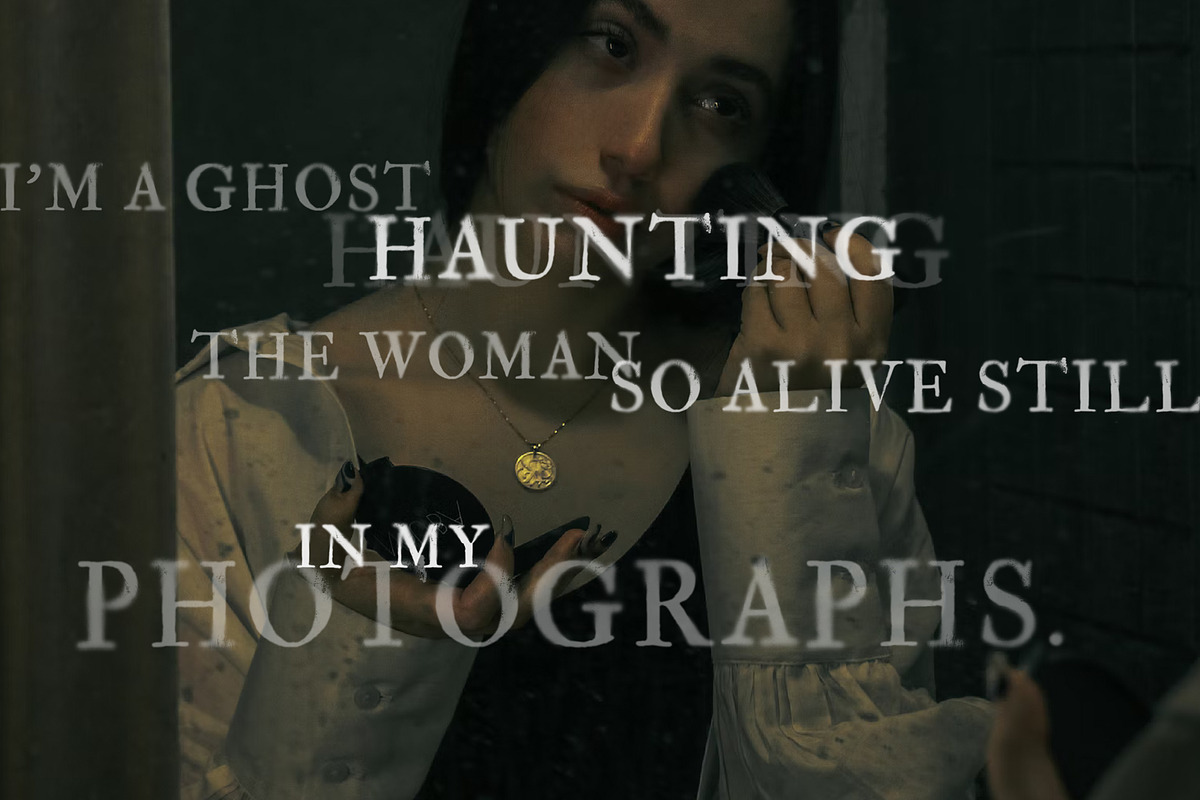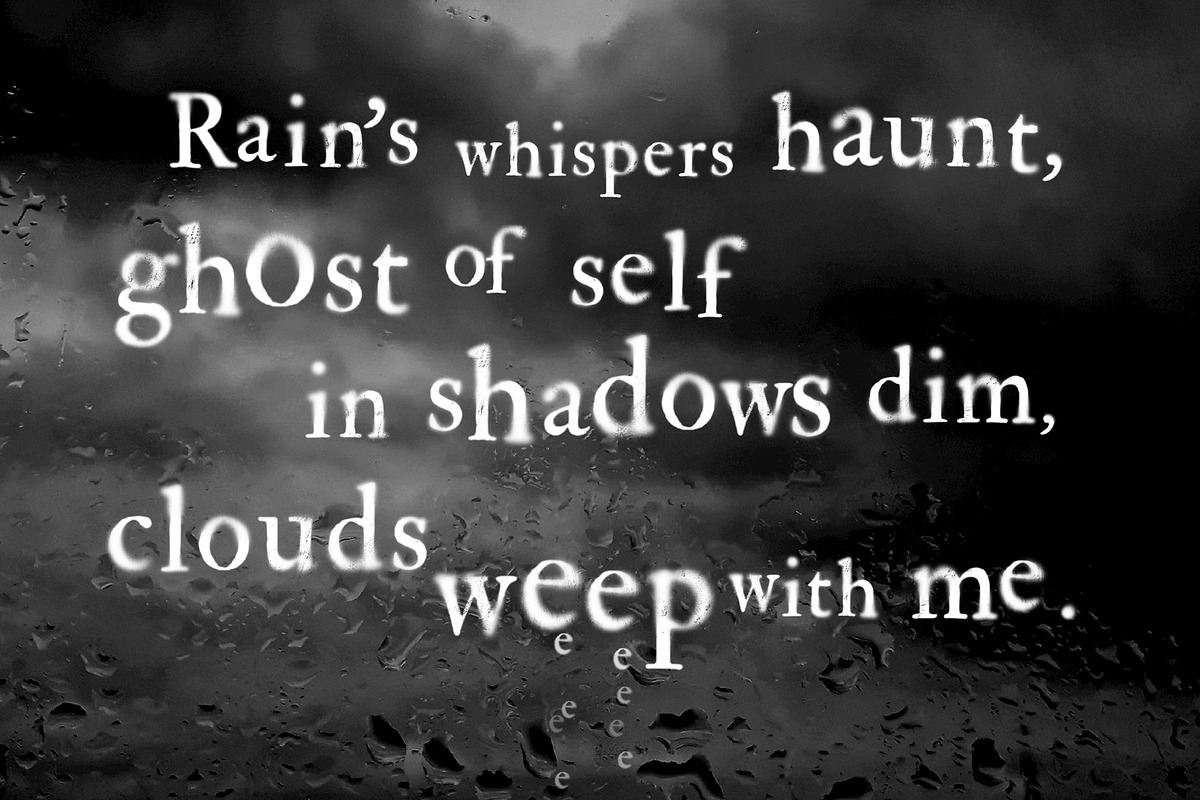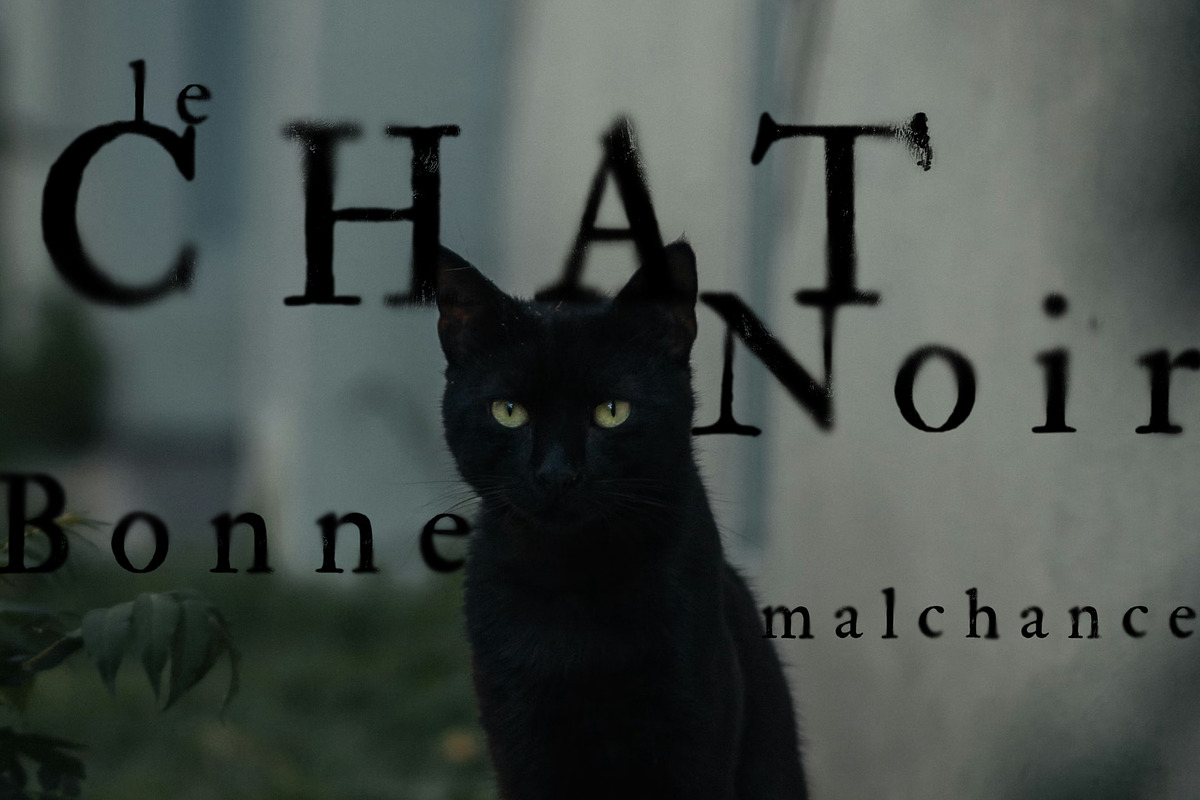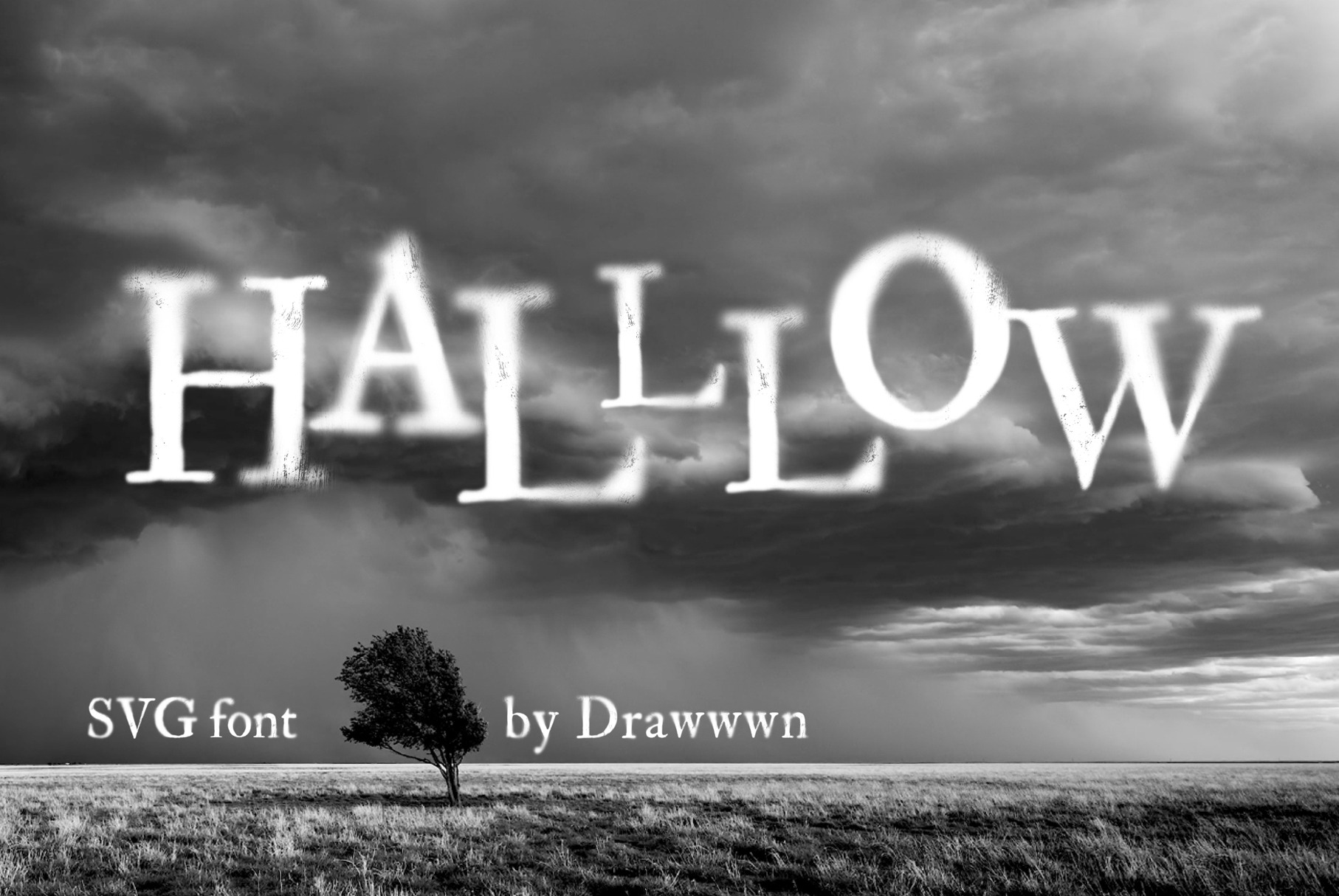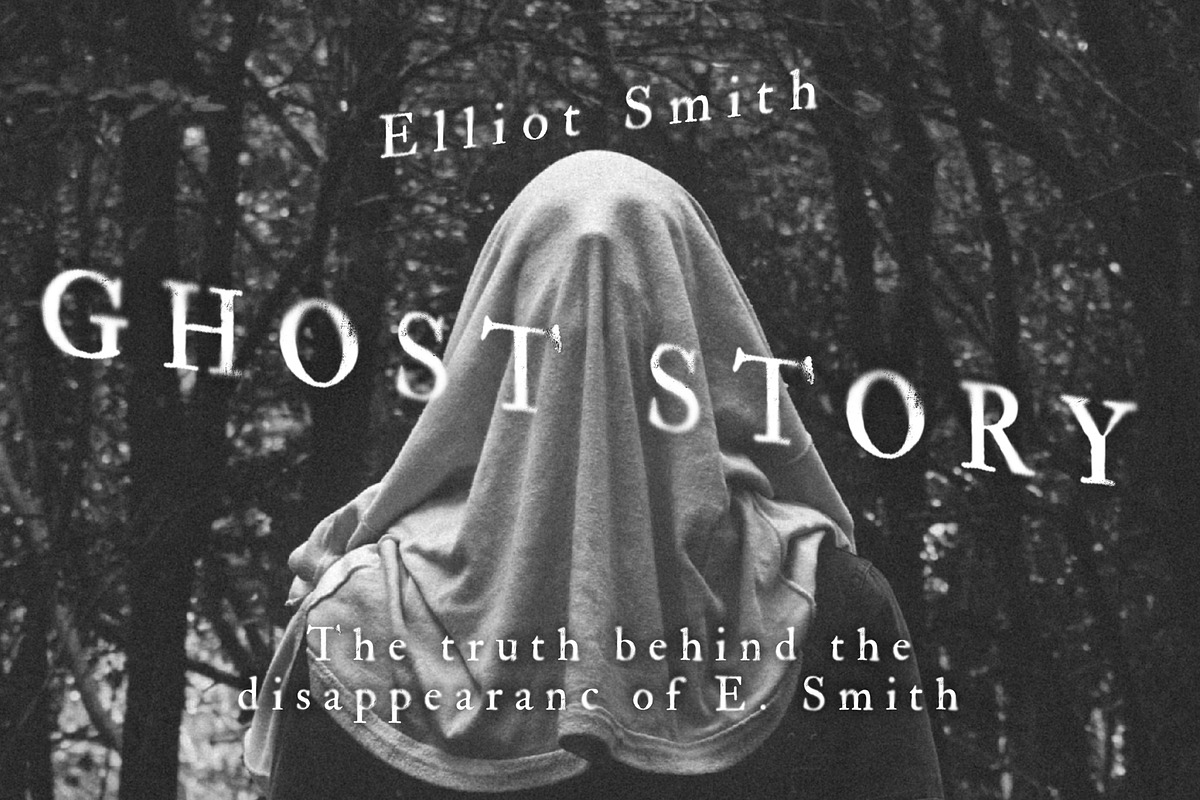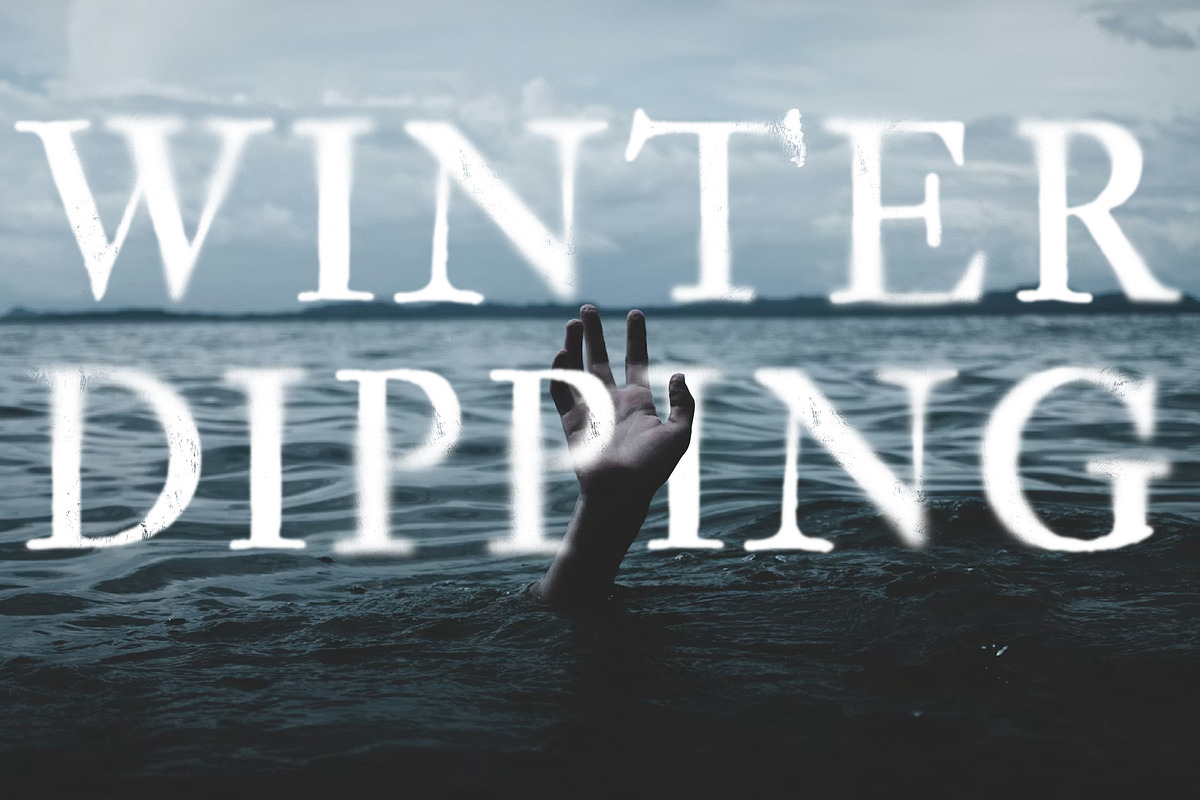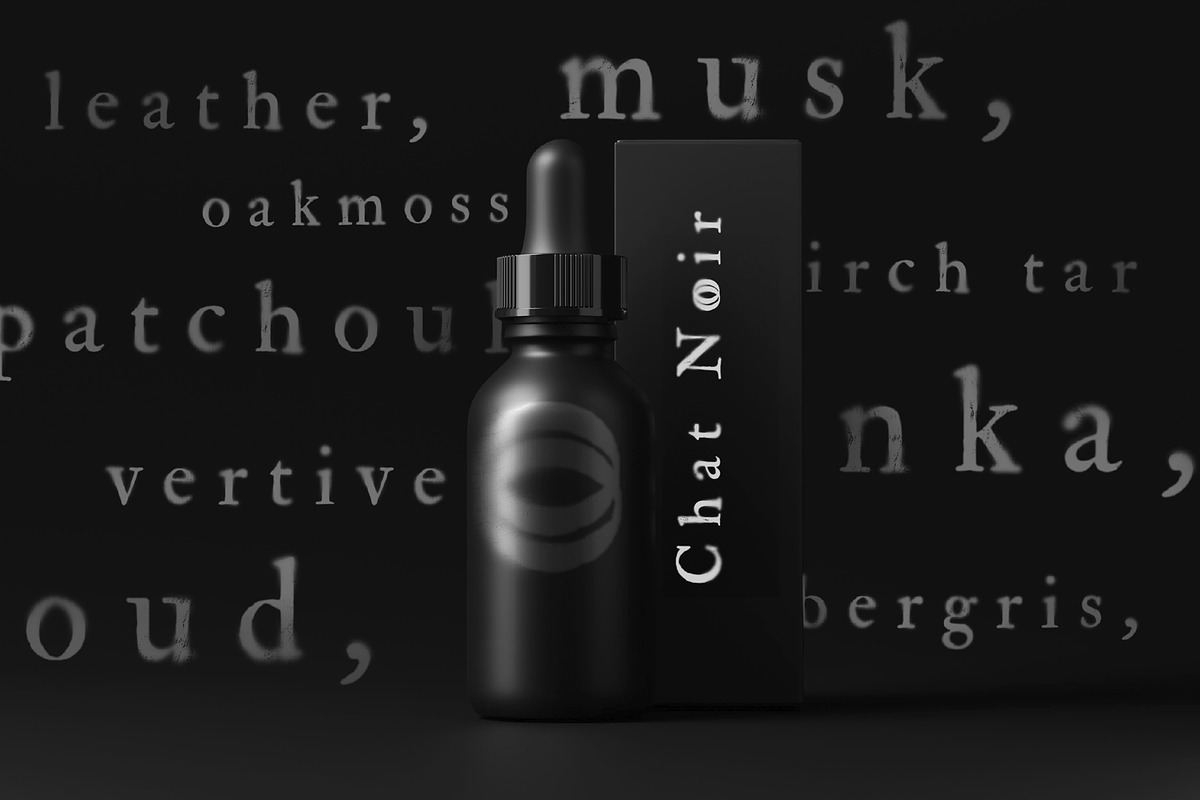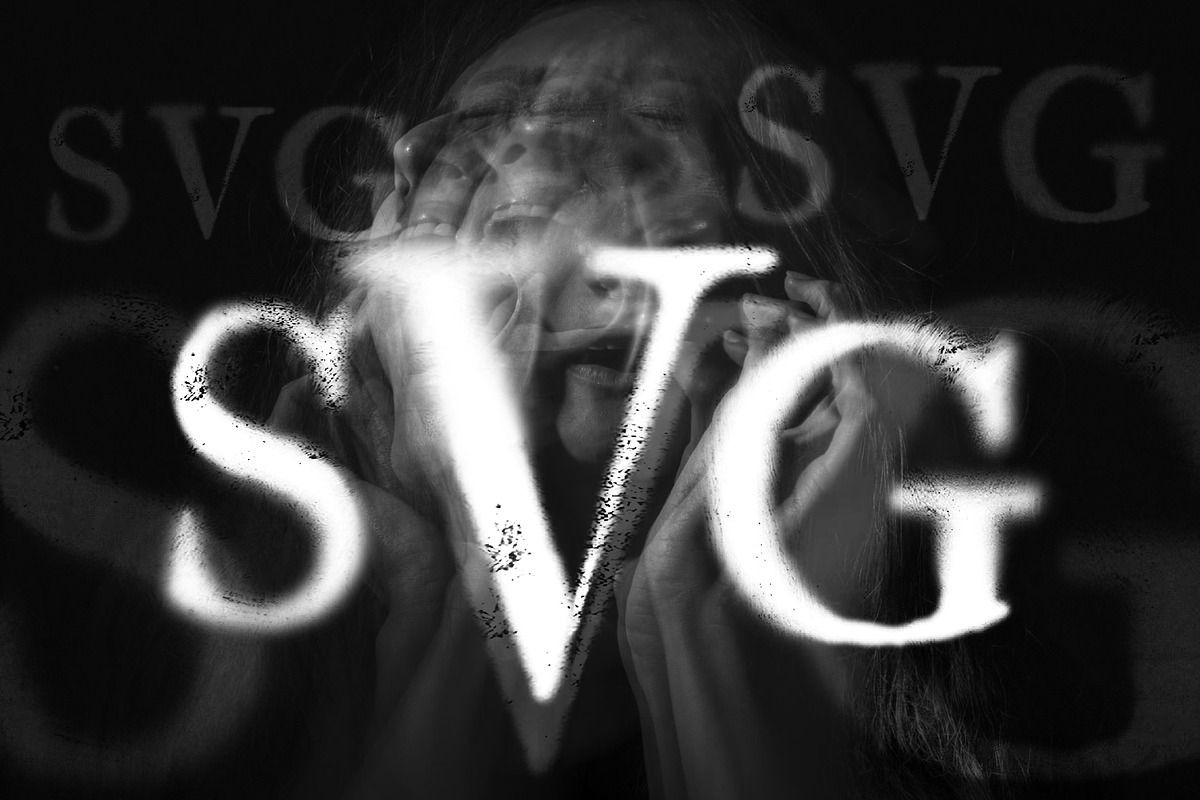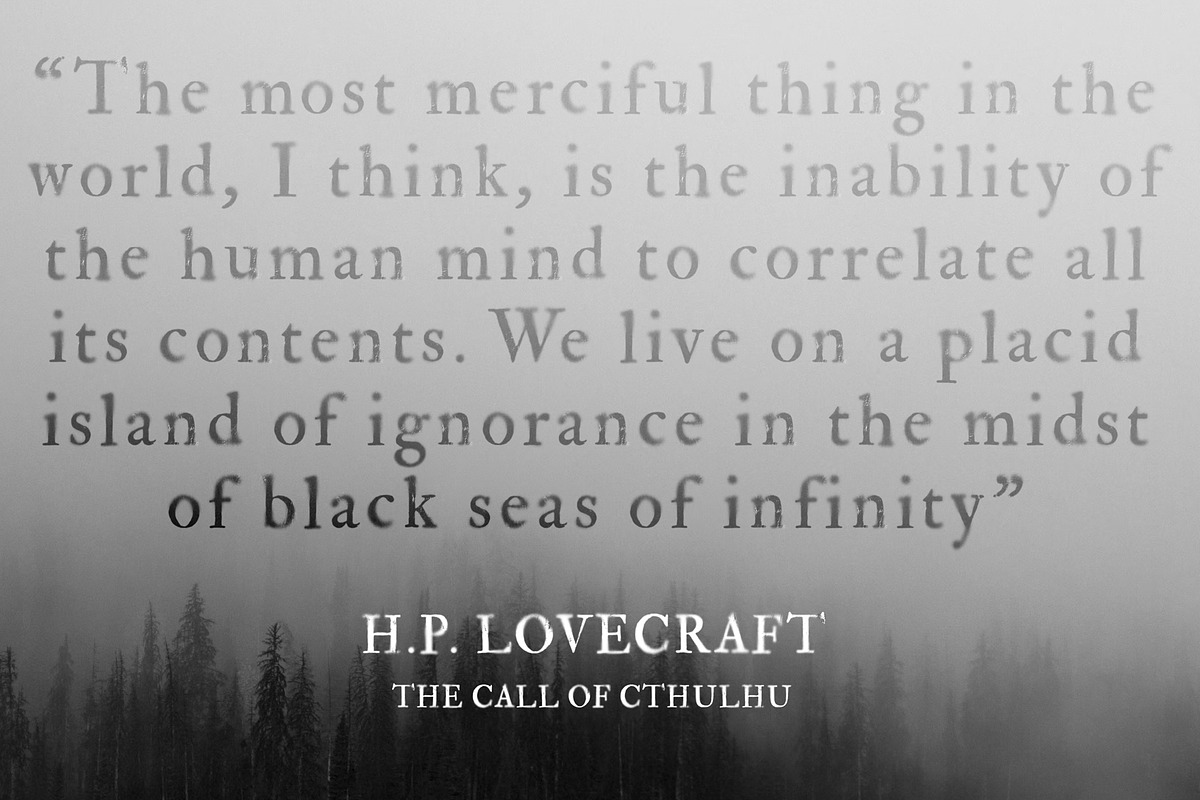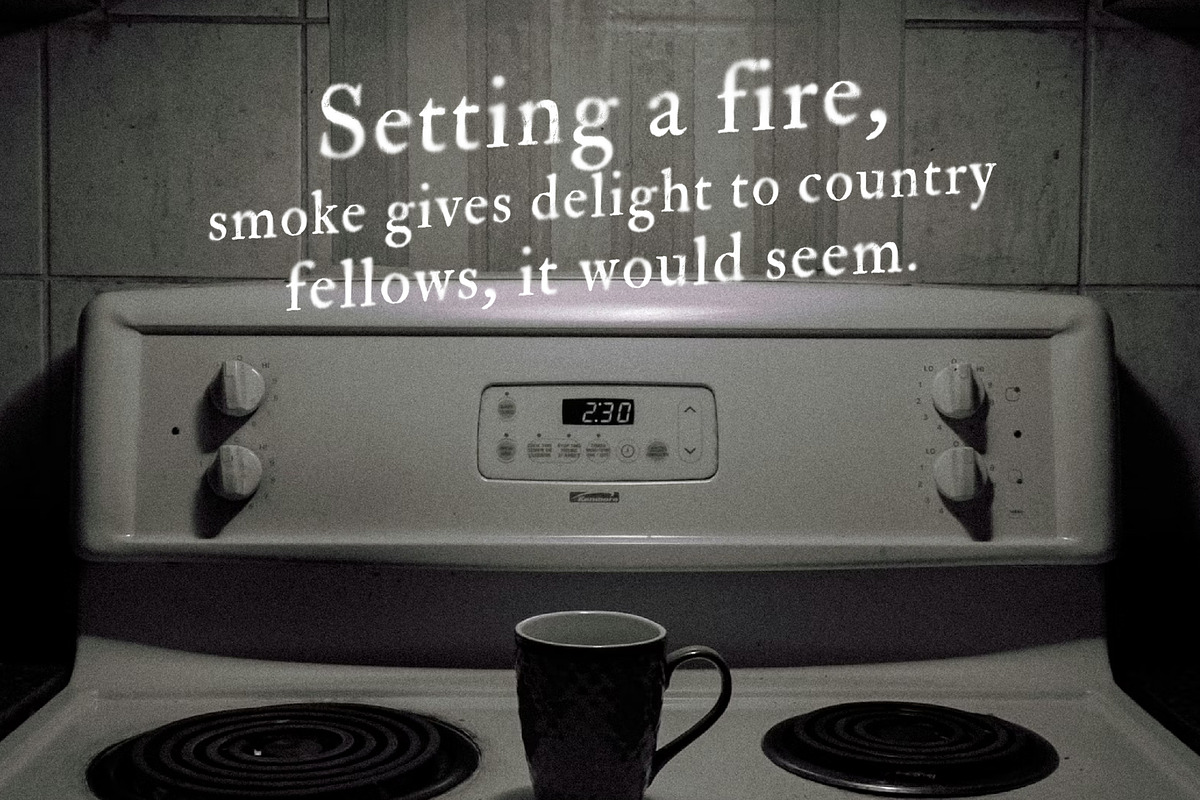
Halllow | Gothic SVG font
Halllow is a bold, characterful font that brings a touch of gothic elegance with a modern twist. Inspired by the textures and drama of classic literature, this SVG typeface features beautifully detailed wood-grain patterns and softly blurred edges for a timeless, handcrafted feel. Its full SVG texture delivers a premium, authentic finish that makes your designs stand out, while the included vector versions offer flexibility for any project. Halllow is perfect for creating striking headlines, branding, and designs that demand personality and depth.